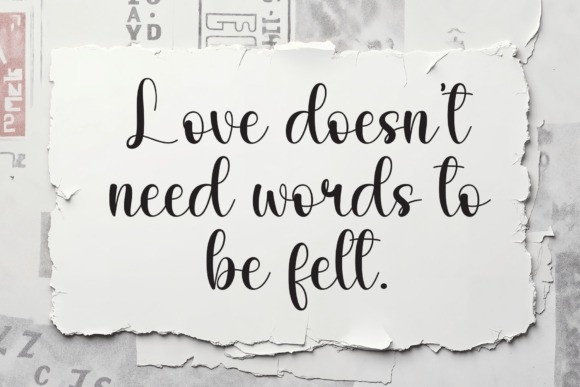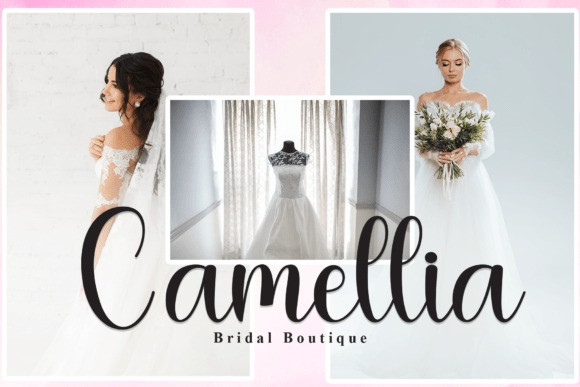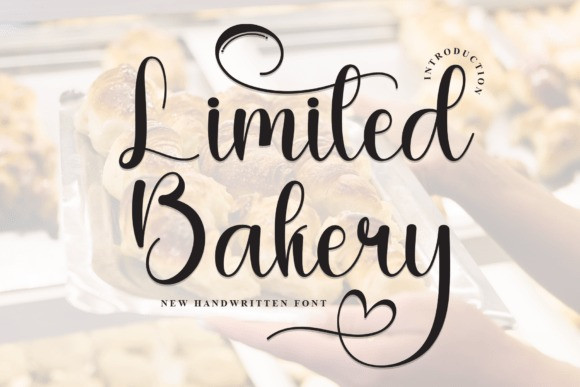
Limited Bakery Handwritten Font
Limited Bakery Handwritten Font Dive headfirst into the captivating elegance of our meticulously forged display font, spun together with a harmonious blend of sugar-sweet allure and heartfelt warmth. This typeface crowns romantic wedding invitations and custom-made greeting cards with its irresistible flair, casting a sprinkle of fascination on every creative venture. Packed with sprightly dynamism, this font weaves a spell of delight into your artworks, assuring a spread of happiness across all your endeavours. Prepare to fall head over heels for its flawless charisma!